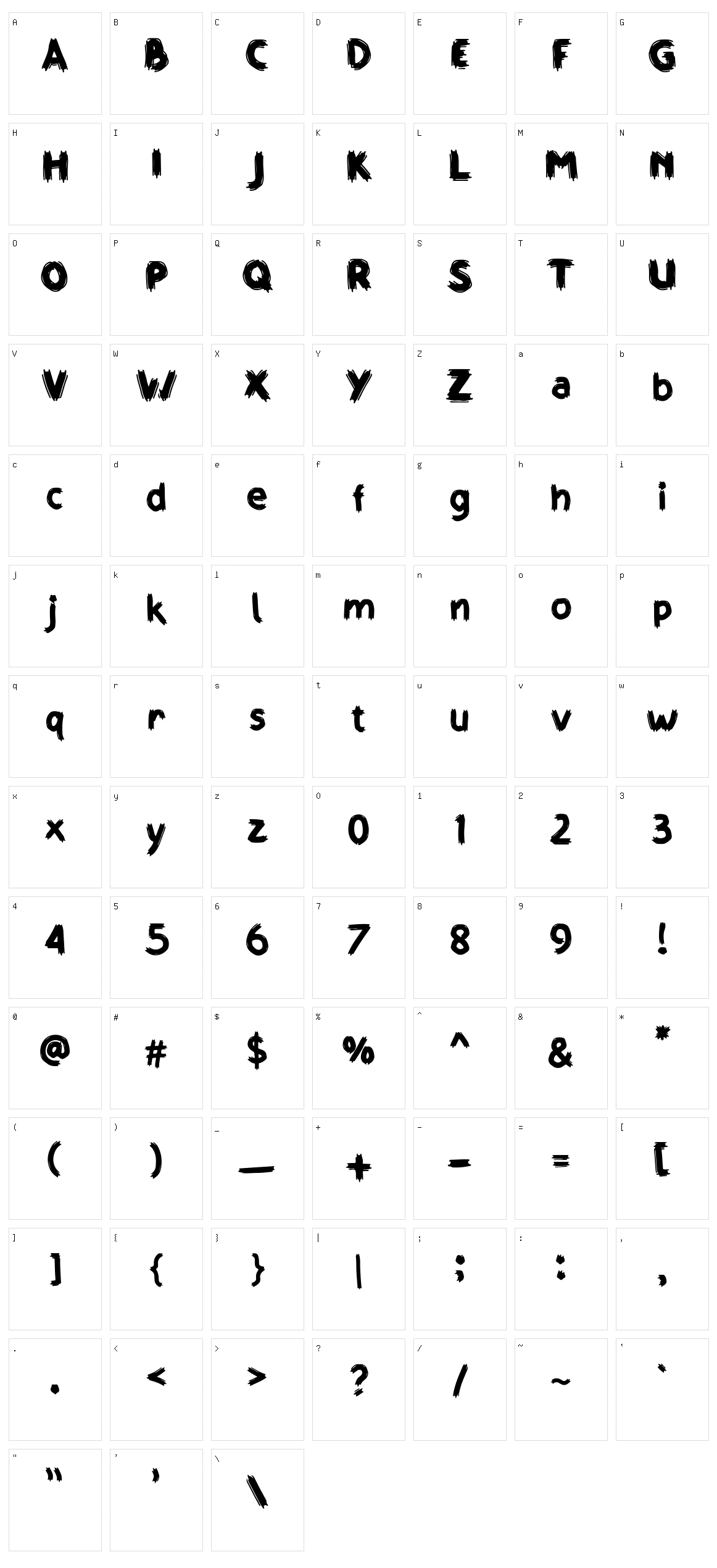
The free font Wanderism is carefully designed by Jetsmax Studio, showcasing a thoughtful balance of creativity and usability and falls under the Script font style. When you download the ZIP file, it contains only 90.99 KB of font files, making it lightweight and quick to download. Please review the license details below to understand permitted usage and distribution rights. If license information is not available, we recommend using this font for personal projects only or contacting the author directly for commercial usage permissions.